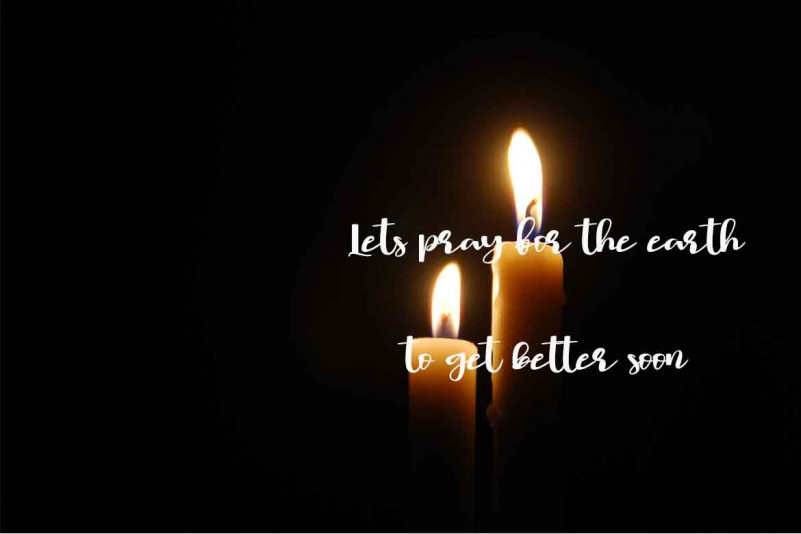
Namira Handwritten Font
Namira is a flowing and relaxed handwritten font, created with the help of an outstanding brush pen. It looks stunning on wedding invitations, thank you cards, quotes, greeting cards, logos, business cards and every other design which needs a handwritten touch.